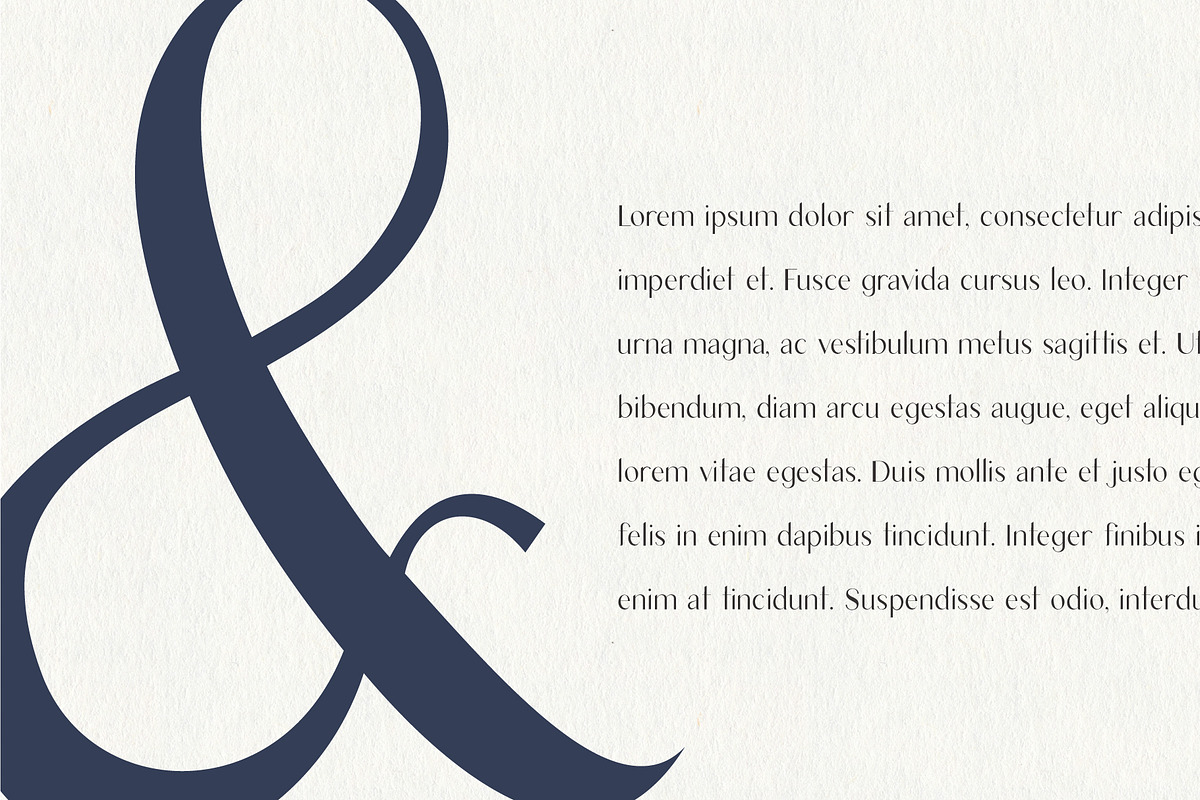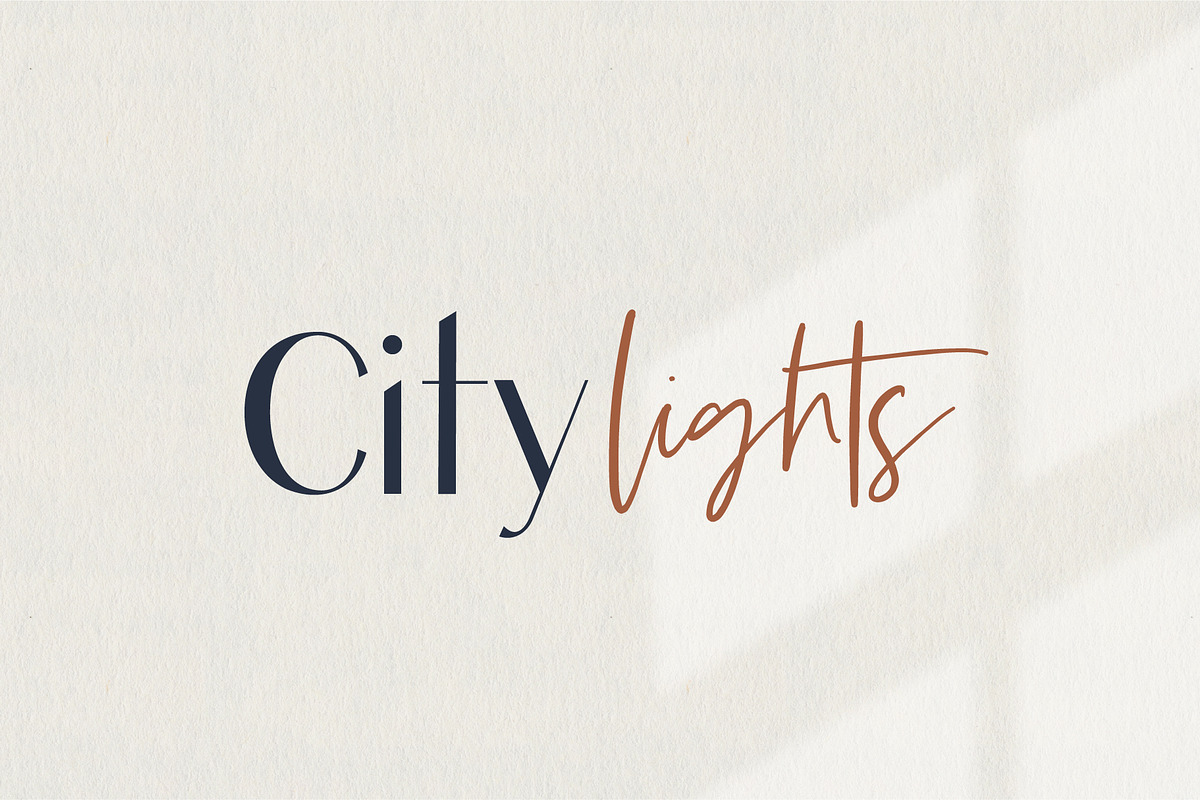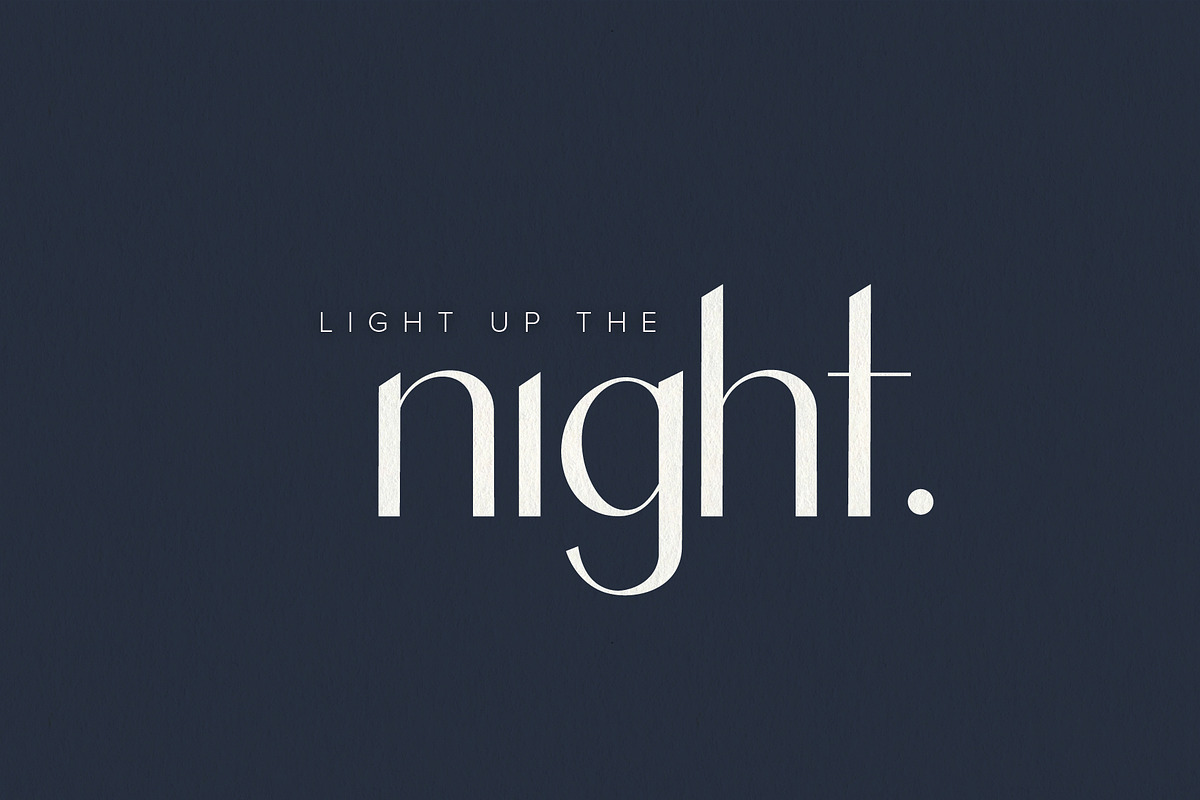
Introducing LUMINA, a modern, classy san serif typeface. This font pairs well with modern san serifs and scripts as pictured, or stands strongly on its own as a heading or editorial font.
LUMINA – A san serif typeface that contains upper and lowercase characters, number 0-9 and a range of punctuation and symbols. If you have any trouble finding certain characters you can access them via the glyphs panel.